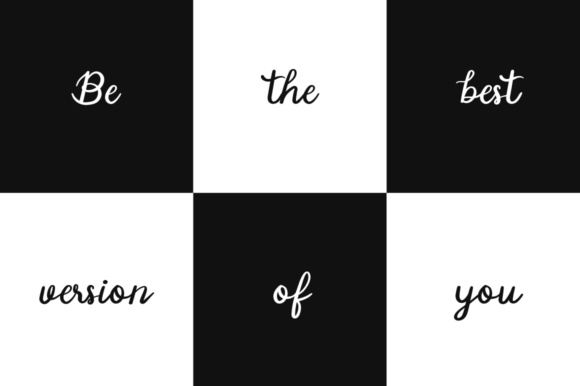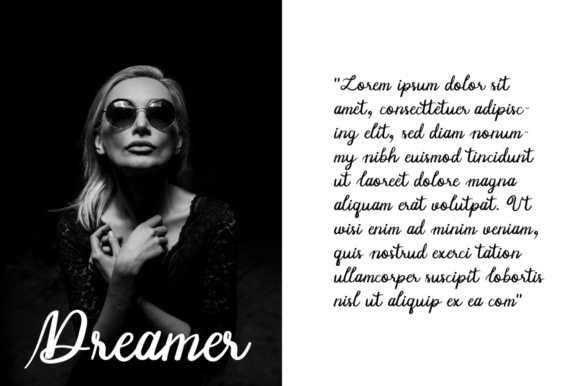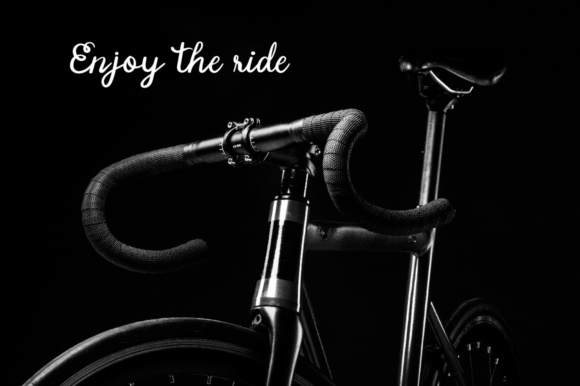
Introduction to Manee Font
Manee is a beautiful and well constructed handwritten typeface, suitable for designs that need a clean and optimistic vibe.
This font is great in fashionable content, and works well when combined with a plethora of contrasting font types .
Key Features of Manee Font
Why Choose Manee Font?